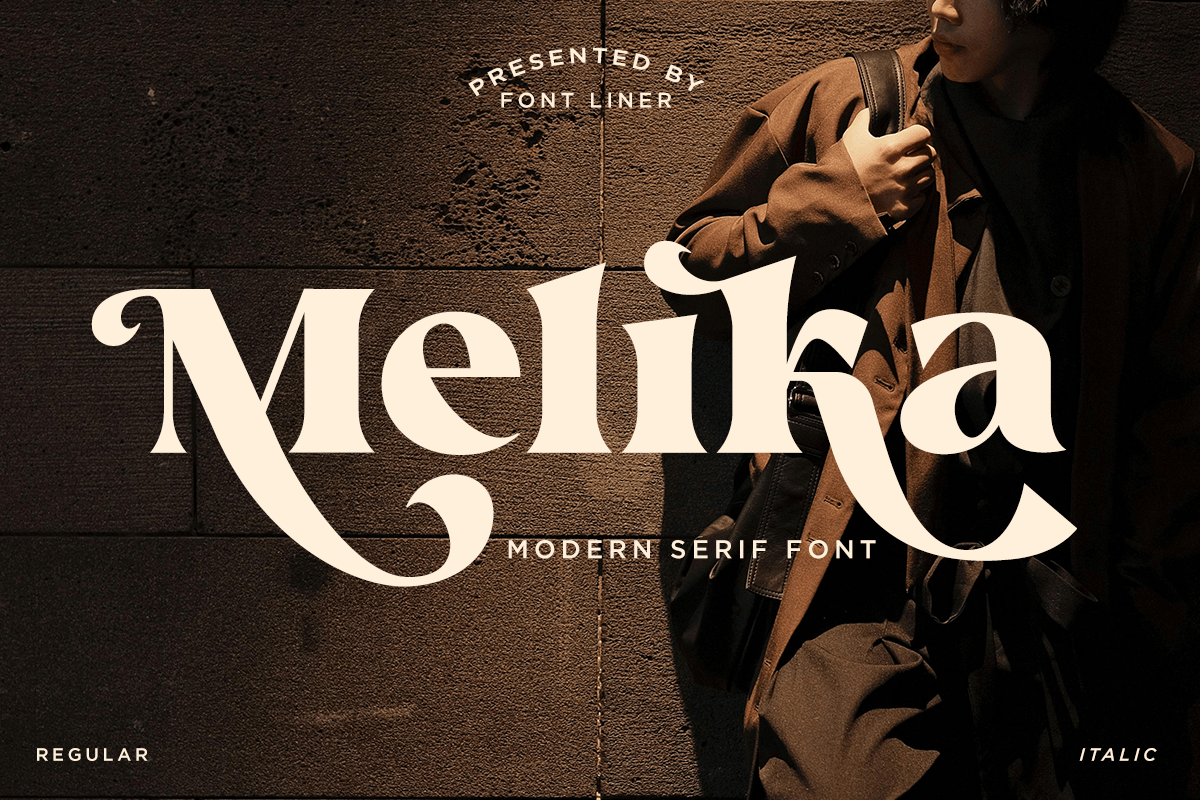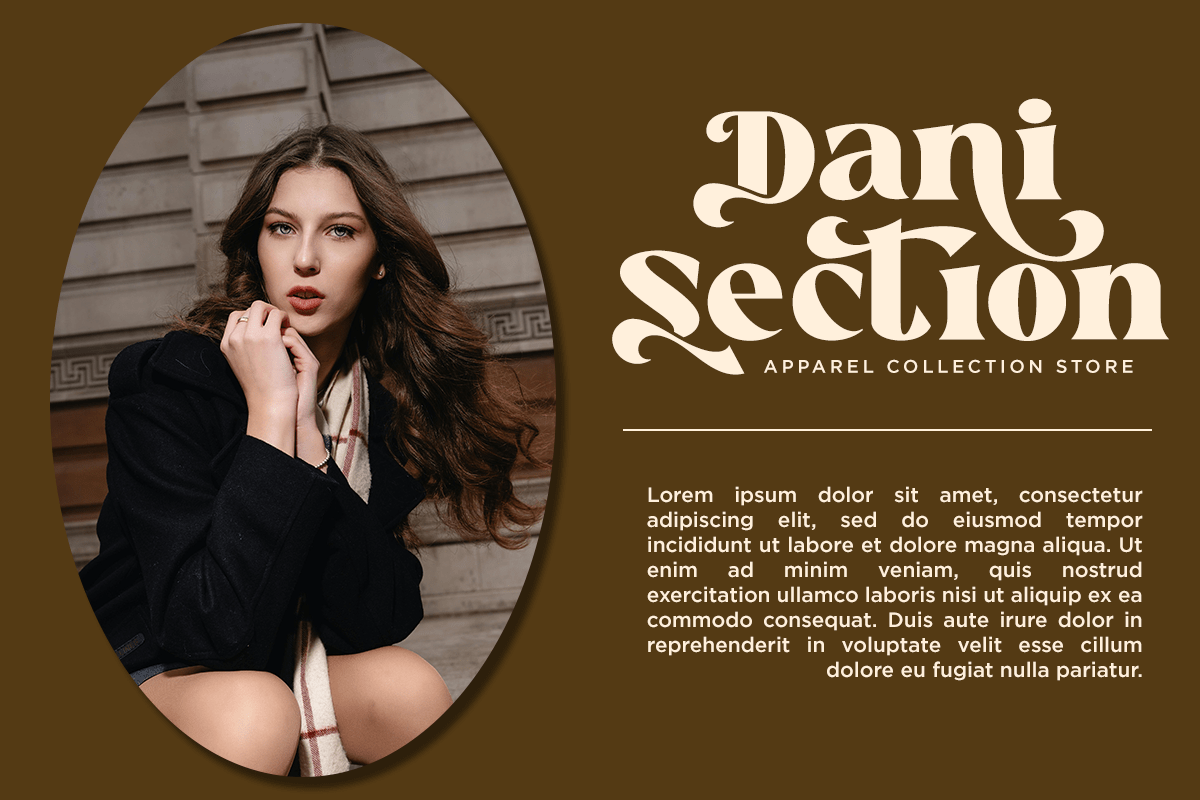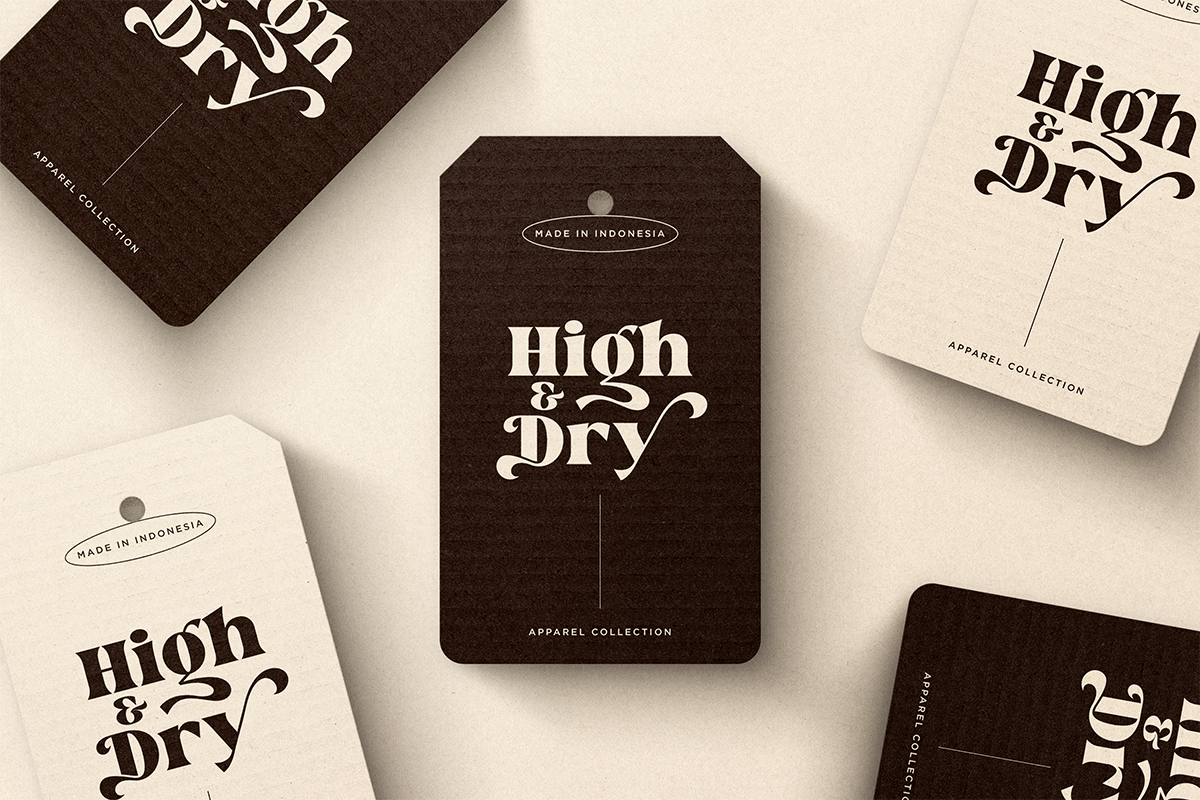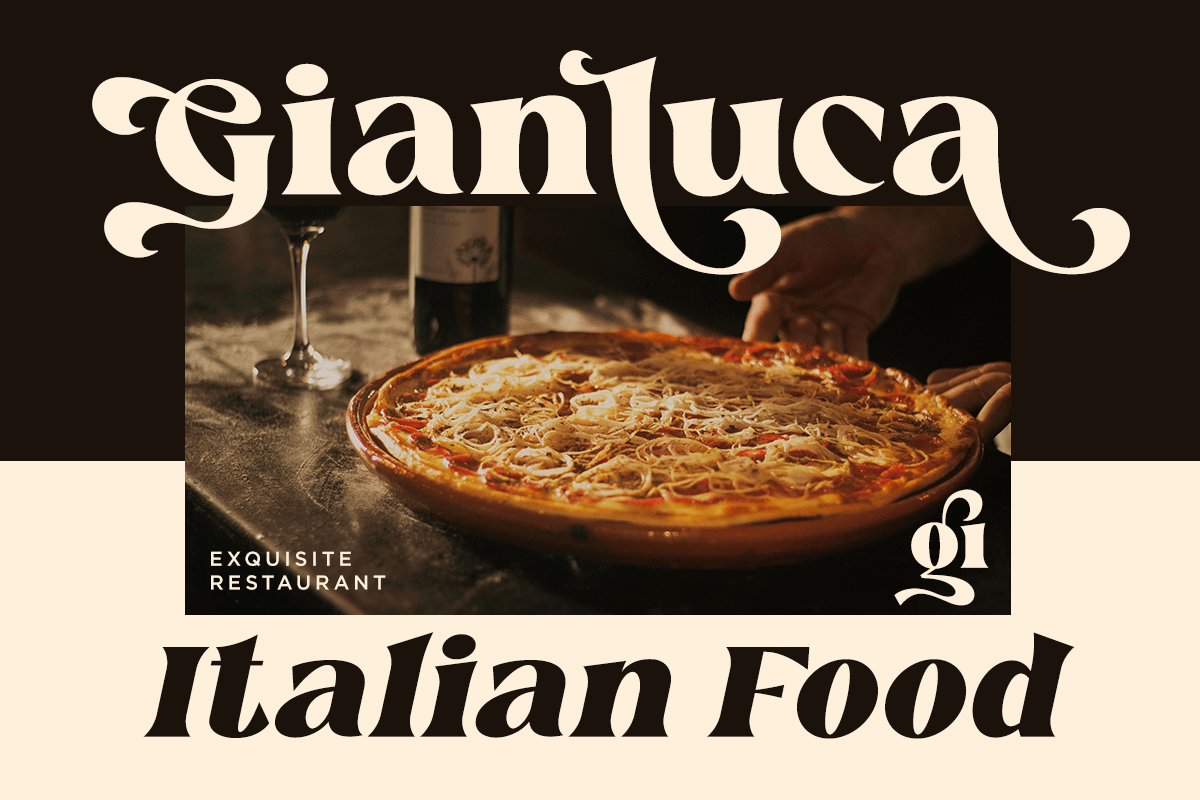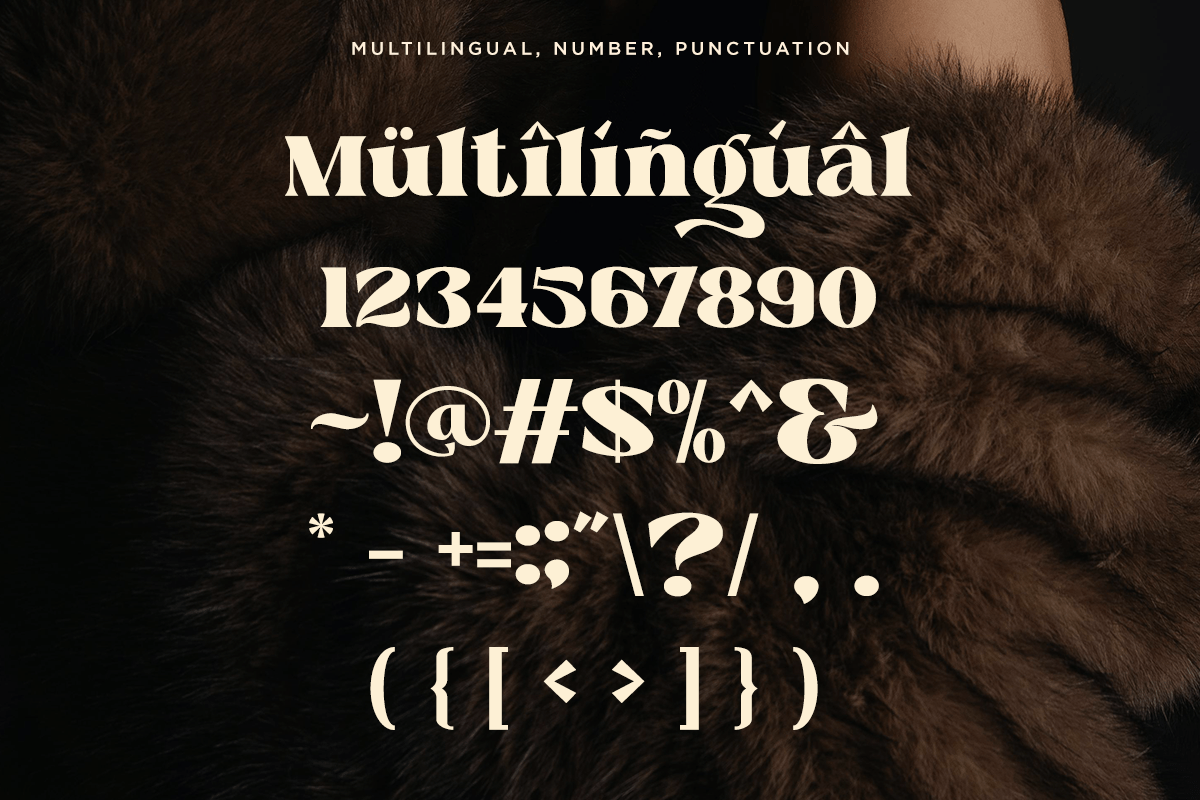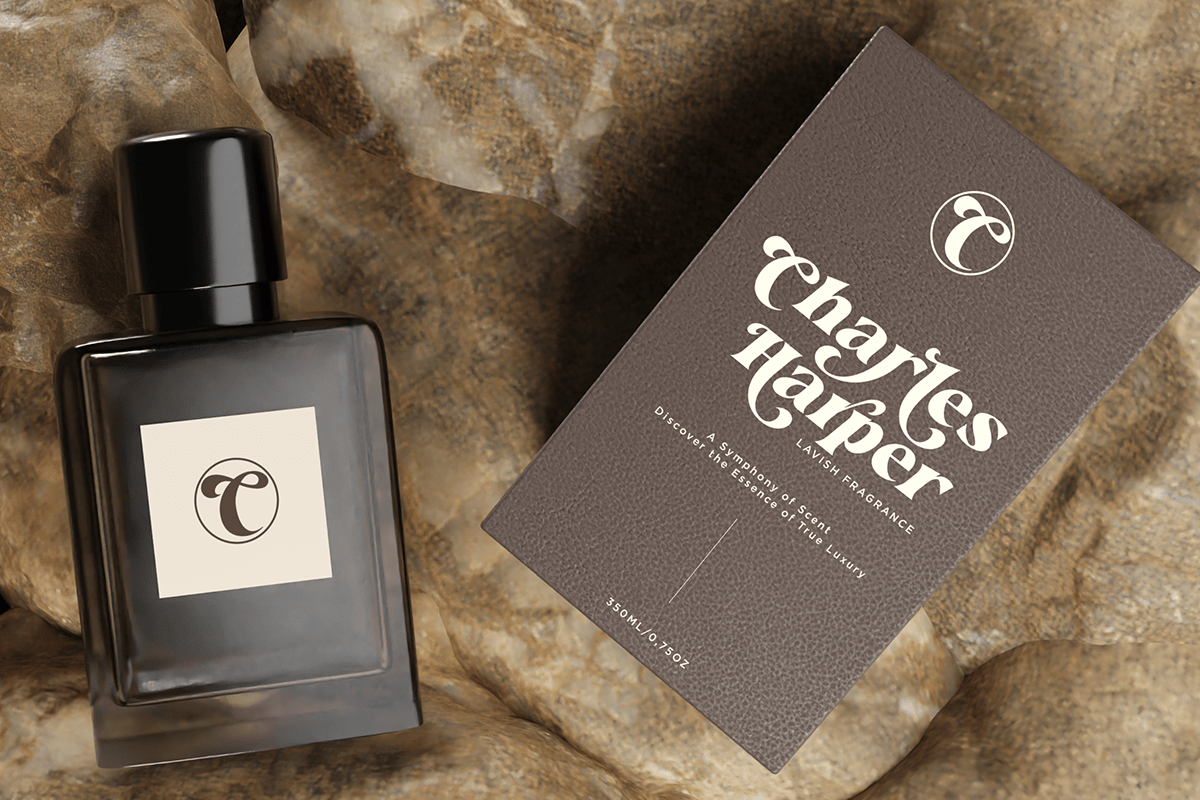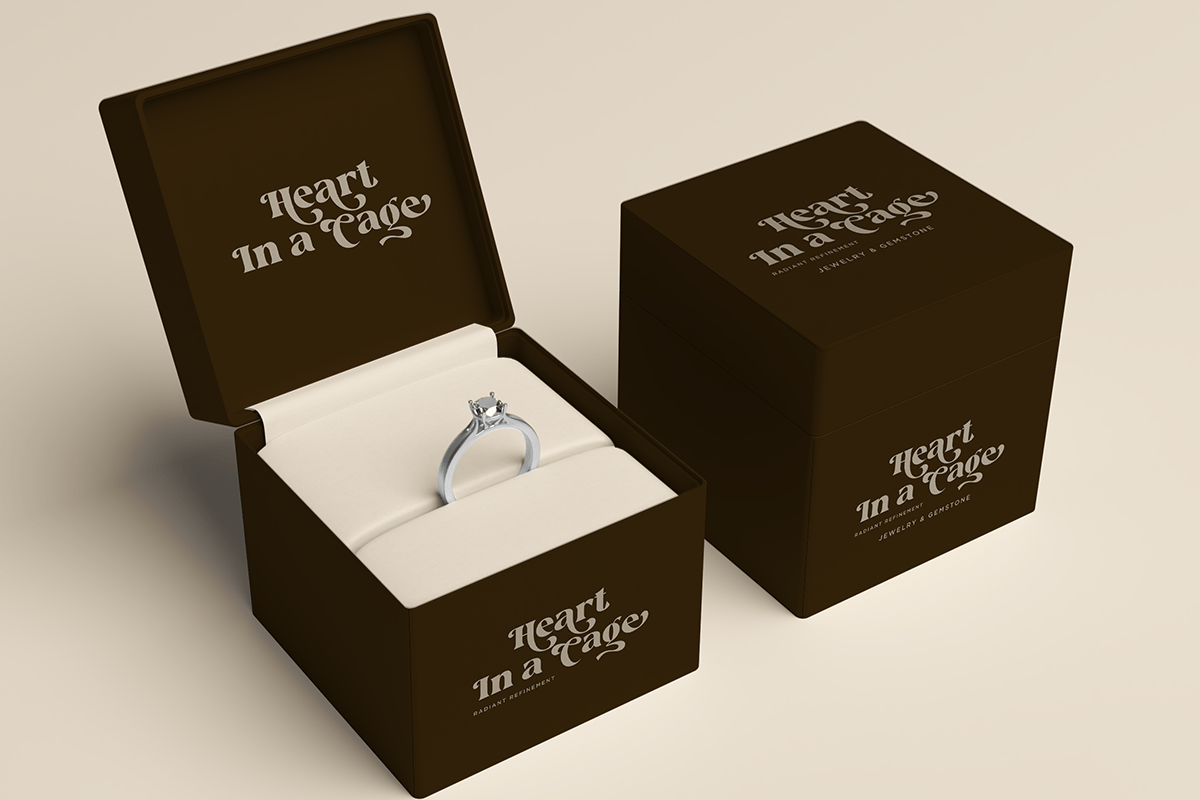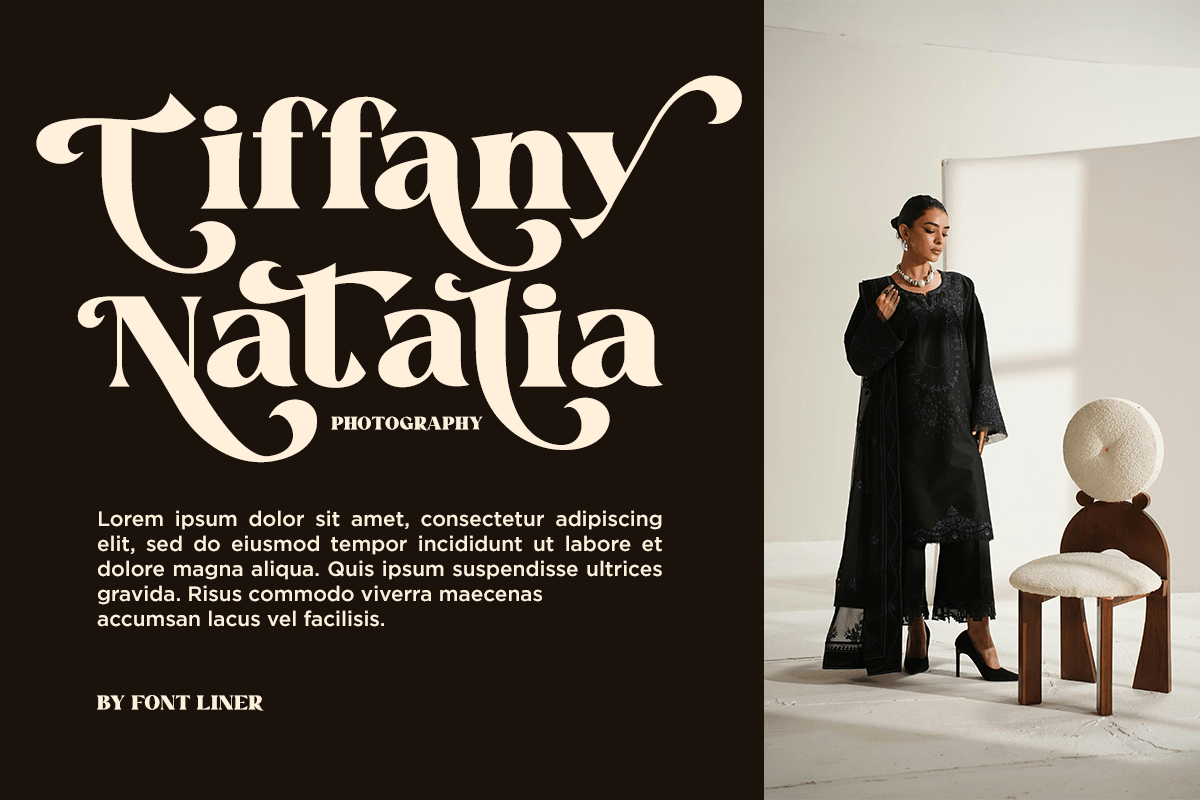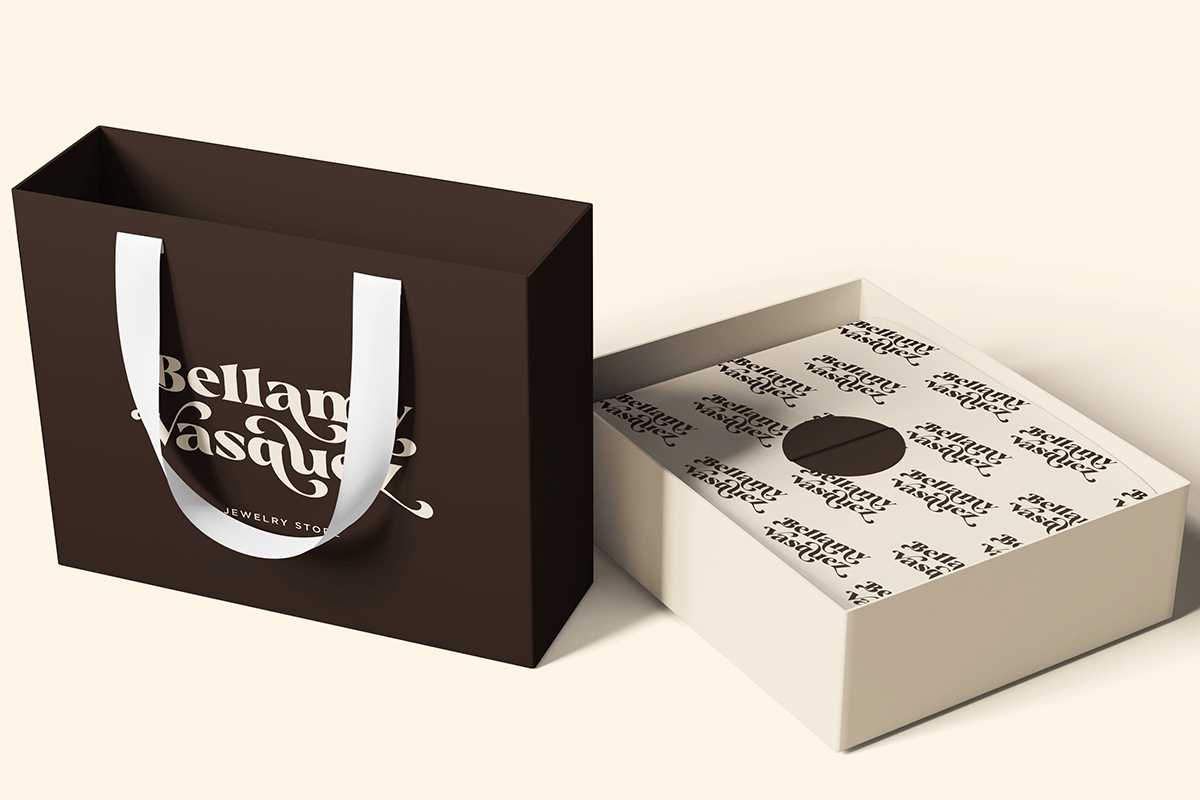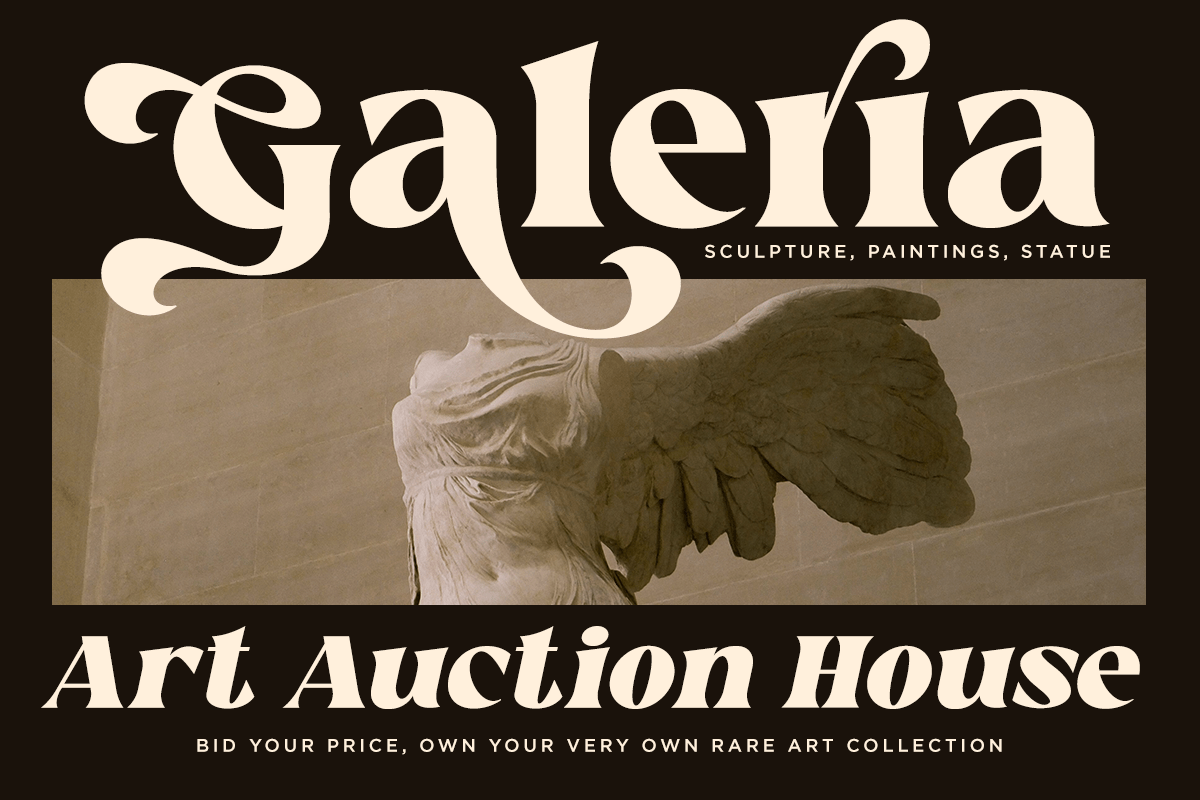
Melika – Modern Serif Font
Melika is a modern serif font that embodies timeless elegance with a refined contemporary touch. Featuring graceful high-contrast letterforms, luxurious curves, and beautifully crafted alternates, this typeface creates a sophisticated visual identity that feels premium, fashionable, and effortlessly memorable. Its distinctive character makes Melika an excellent choice for elegant branding and editorial typography.
Designed for luxury branding, fashion labels, beauty products, jewelry, perfumes, editorial layouts, real estate, restaurants, boutiques, magazines, packaging, wedding stationery, hotels, social media, and premium marketing campaigns, Melika delivers outstanding versatility across both print and digital media. Whether you’re designing elegant logos, product packaging, magazine headlines, or sophisticated visual identities, Melika adds confidence and timeless style to every project.
Melika includes uppercase and lowercase characters, stylish alternates, multilingual support, numerals, punctuation, and symbols, giving designers complete creative freedom. From luxury packaging and boutique branding to editorial design and premium advertising, Melika is the perfect modern serif font for projects that demand elegance, professionalism, and lasting visual impact.
– Stylistic alternates
– Uppercase, Lowercase & Ligatures